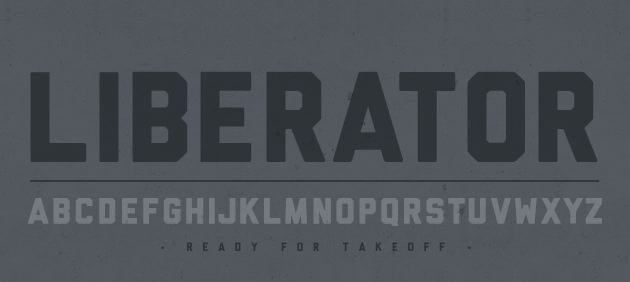
Hi Designers! We are excited to introduce elegant and stylish fonts for your project. These fonts are free for personal use and offer a variety of beautiful styles. Check out our new release, Liberator Font, a font similar to tiki magic but with unique styles. Designed by Ryan Clark, this font is truly exceptional.
The main keen function of this typeface is that it is totally legible even in its very small sizes. That saves so much house for the lettering and appears smooth even drafted through too many words at the same time.